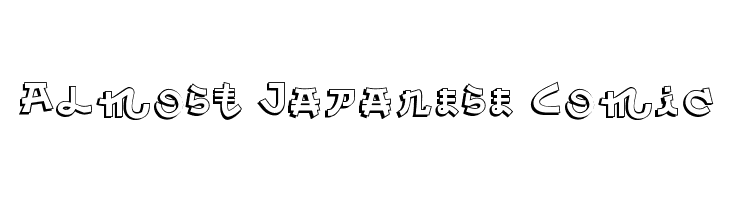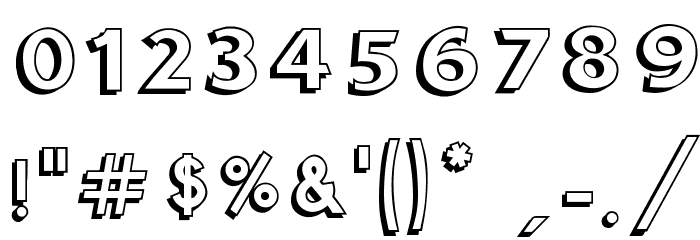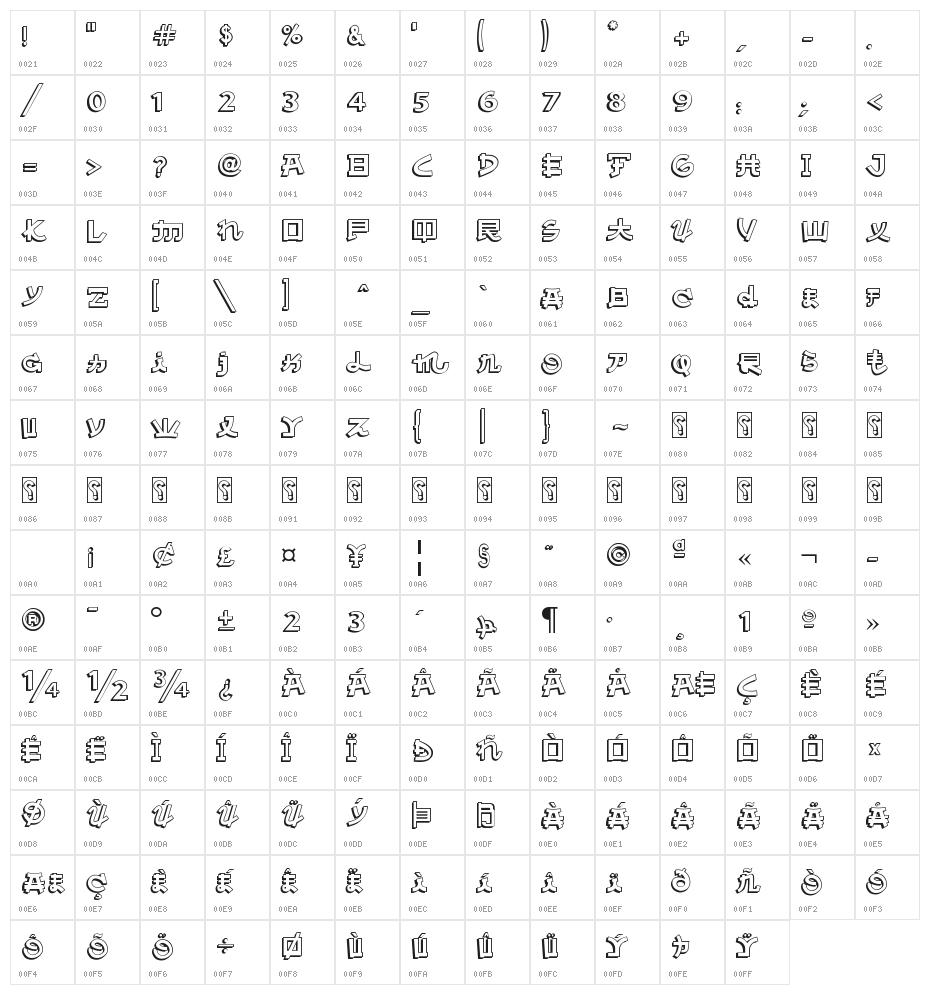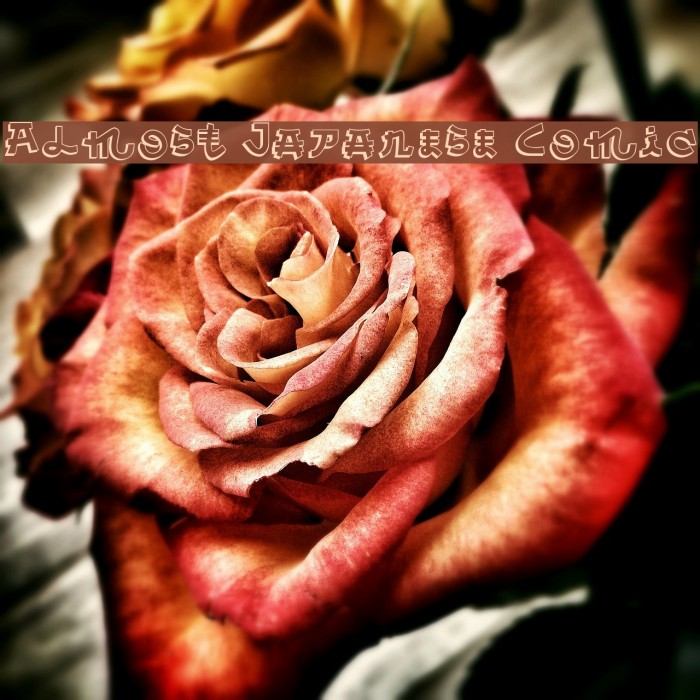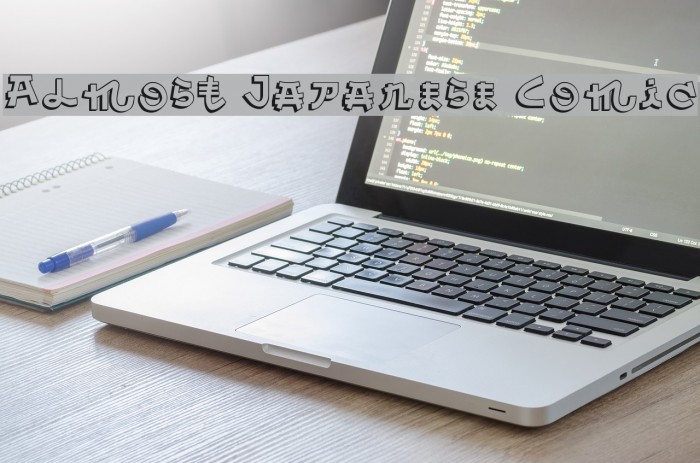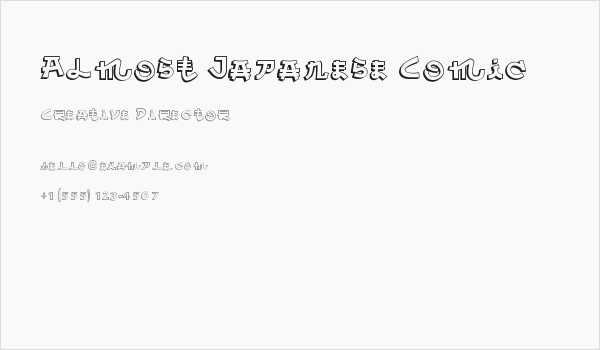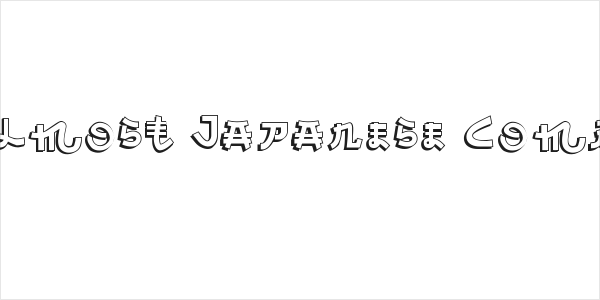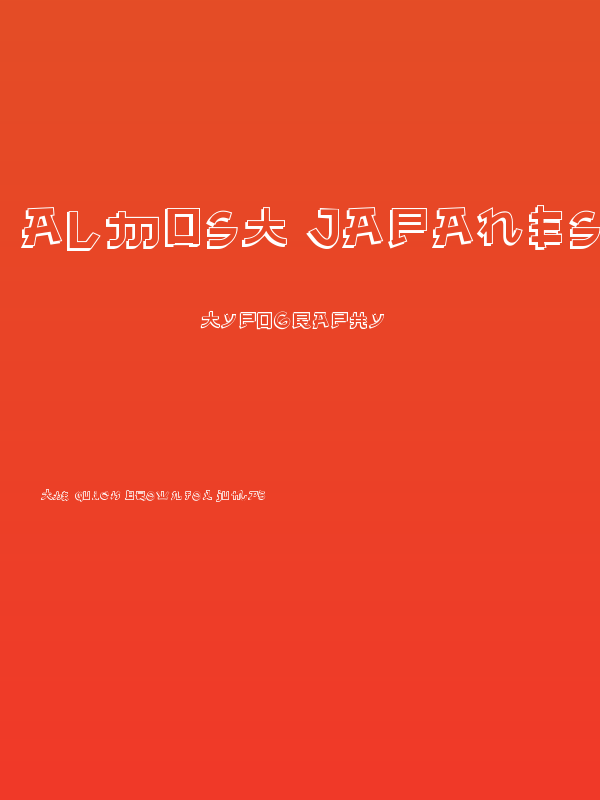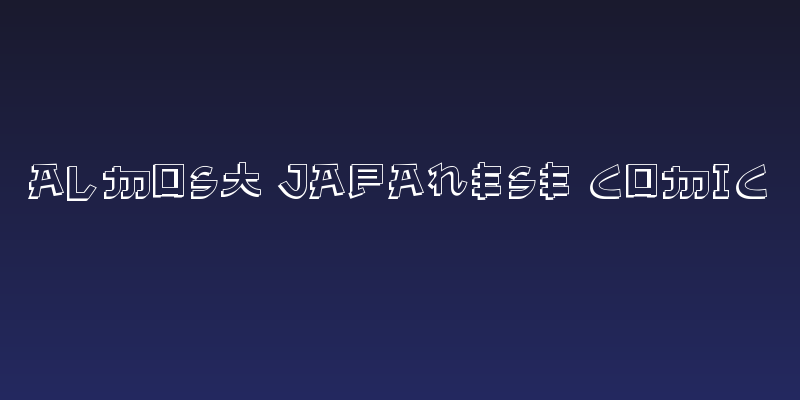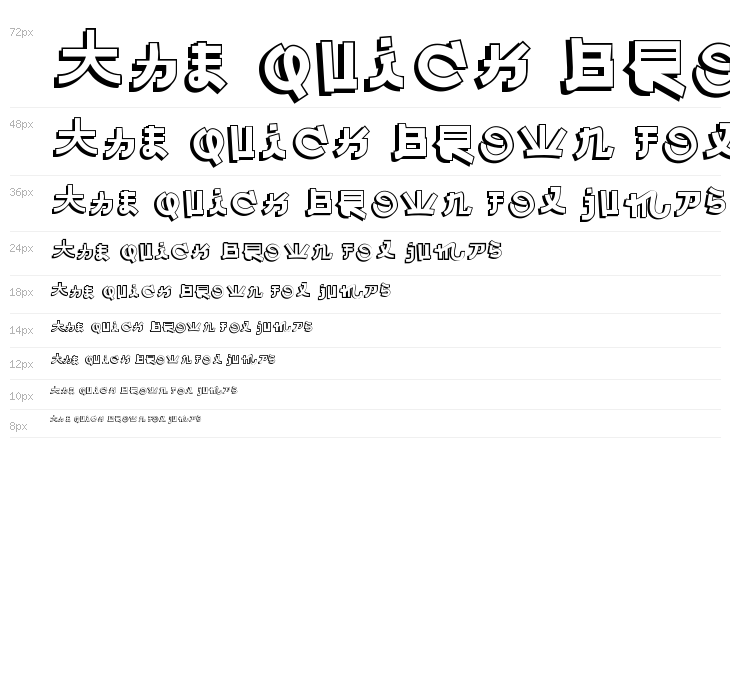
Almost Japanese Comic Font
Almost Japanese Comic Description
This font features a bold, comic-inspired style with a playful and dynamic appearance. The characters have a three-dimensional effect, achieved through a shadow-like outline that gives them depth. The design incorporates elements reminiscent of Japanese calligraphy, with strokes that are both angular and curved, creating a unique blend of cultural aesthetics. The uppercase letters are particularly striking, with exaggerated forms that enhance the font's visual impact. The lowercase letters maintain the same playful style, ensuring consistency across different text applications. Numbers and special characters are designed to match the overall theme, making this font versatile for various creative projects.
| Proposed Projects | Ideal for comic books, graphic novels, posters, and any project requiring a fun and dynamic visual style. |